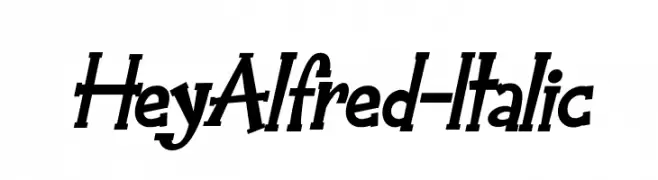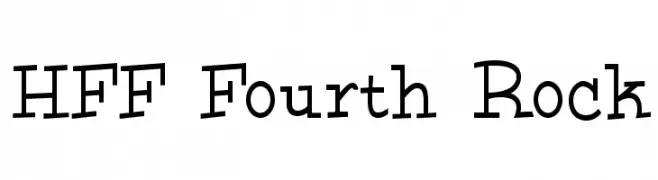
( Fonts by Fachran Heit )
A bold, italic font with dynamic slanted letterforms and consistent stroke width.
( Fonts by www.lars-manenschijn.nl )
A playful, bold, and quirky hand-drawn font with irregular shapes.
( Fonts by Alexa )
A playful, hand-drawn font with irregular, whimsical characters.
( Fonts by StringLabs Creative Studio )
A bold, playful font with rounded characters and whimsical cutouts.
( Fonts by www.lars-manenschijn.nl )
A playful, bold, hand-drawn font with quirky, exaggerated shapes.
( Fonts by Have Fun with Fonts )
A playful, bold font with rounded, bubble-like characters perfect for fun projects.
( Fonts by Have Fun with Fonts )
A playful serif font with a blend of traditional and modern elements.
( Fonts by Have Fun with Fonts )
A bold, decorative font with rounded characters and a playful style.
( Fonts by Yebhu )
A bold, angular font with a modern and edgy design.
( Fonts by Hatf Type )
A bold, playful font with a cartoon-like, quirky style.